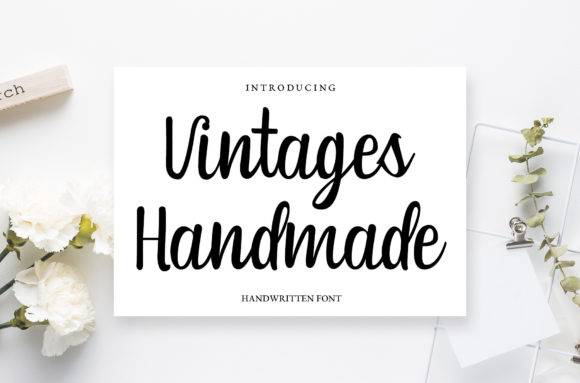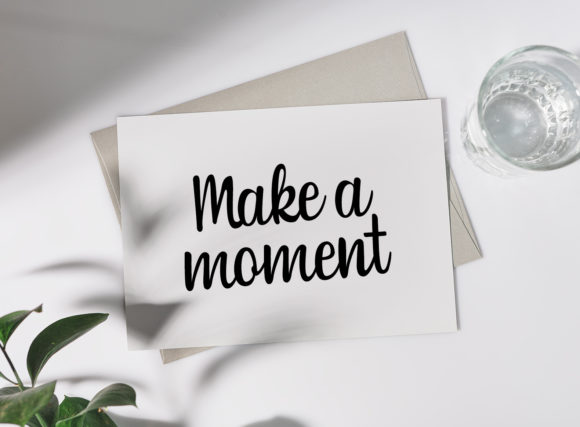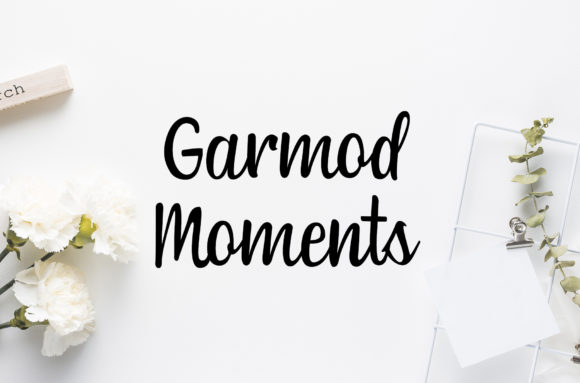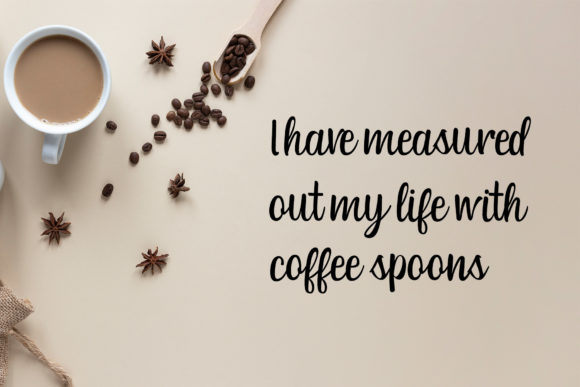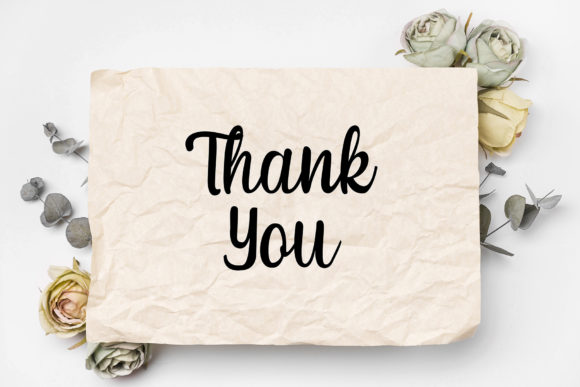
Vintages Font
Vintages is a lovely and eternal handwritten font. It is the best choice for creating eye catching logos, branding and quotes. It features a varying baseline, smooth lines, gorgeous glyphs and stunning alternates.